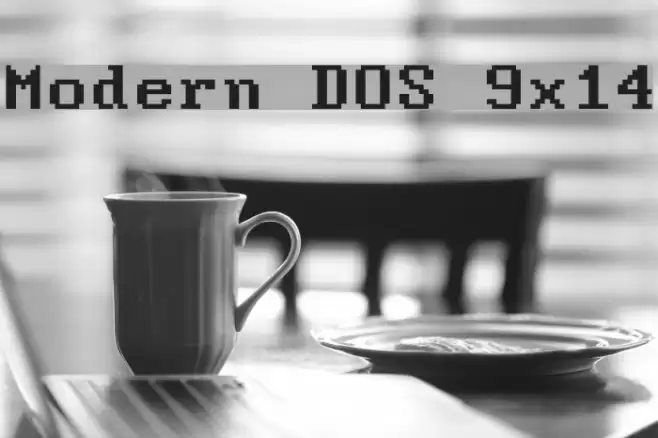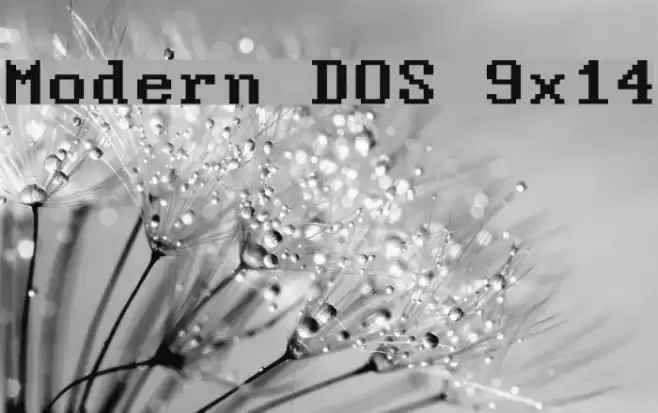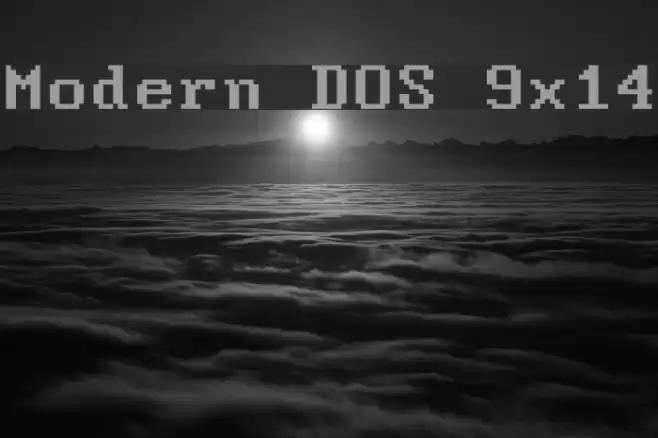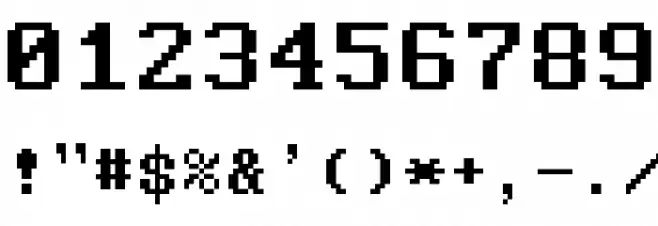
Modern DOS 9x14 Font
Modern DOS 9x14 Description
This font features a distinct pixelated style reminiscent of classic computer and video game graphics. Each character is constructed with a grid-like appearance, giving it a retro, digital feel. The uppercase and lowercase letters maintain a consistent height and width, contributing to a uniform look. The numerals and special characters follow the same pixelated design, ensuring a cohesive aesthetic across all glyphs. This font is ideal for projects that aim to evoke nostalgia or a vintage tech vibe, such as retro-themed websites, video games, or digital art projects.
A pixelated, retro-style font inspired by classic computer graphics from Uncategorized fonts.
- Proposed Projects: Retro-themed websites, video games, digital art, tech-inspired designs.
- Overall Style: Vintage
- Use Case: Headlines, Logos, Digital Art